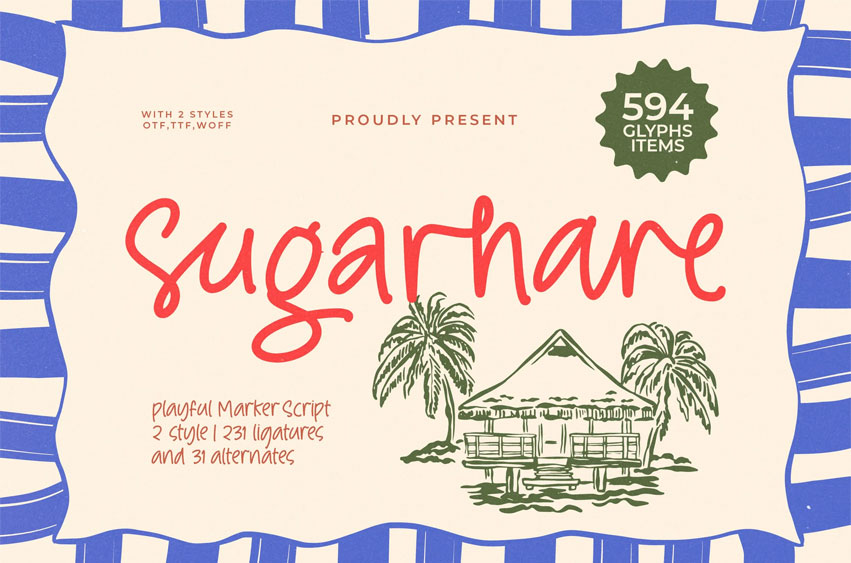
Sugarhare Font Playful Marker Script , Sugarhare is a playful marker-script font with a lively handwritten feel, inspired by sunny beach huts, warm summer notes, and carefree doodles. Its strokes are bold, loose, and naturally imperfect—capturing the charm of real marker handwriting while staying clean and readable for modern design needs.
Designed with 231 ligatures and 31 alternates, Sugarhare gives you endless flexibility to create dynamic, authentic lettering for branding, packaging, posters, social media graphics, children’s products, lifestyle quotes, and tropical-themed designs. With 594 glyphs, this font brings personality, rhythm, and creative energy into every project.